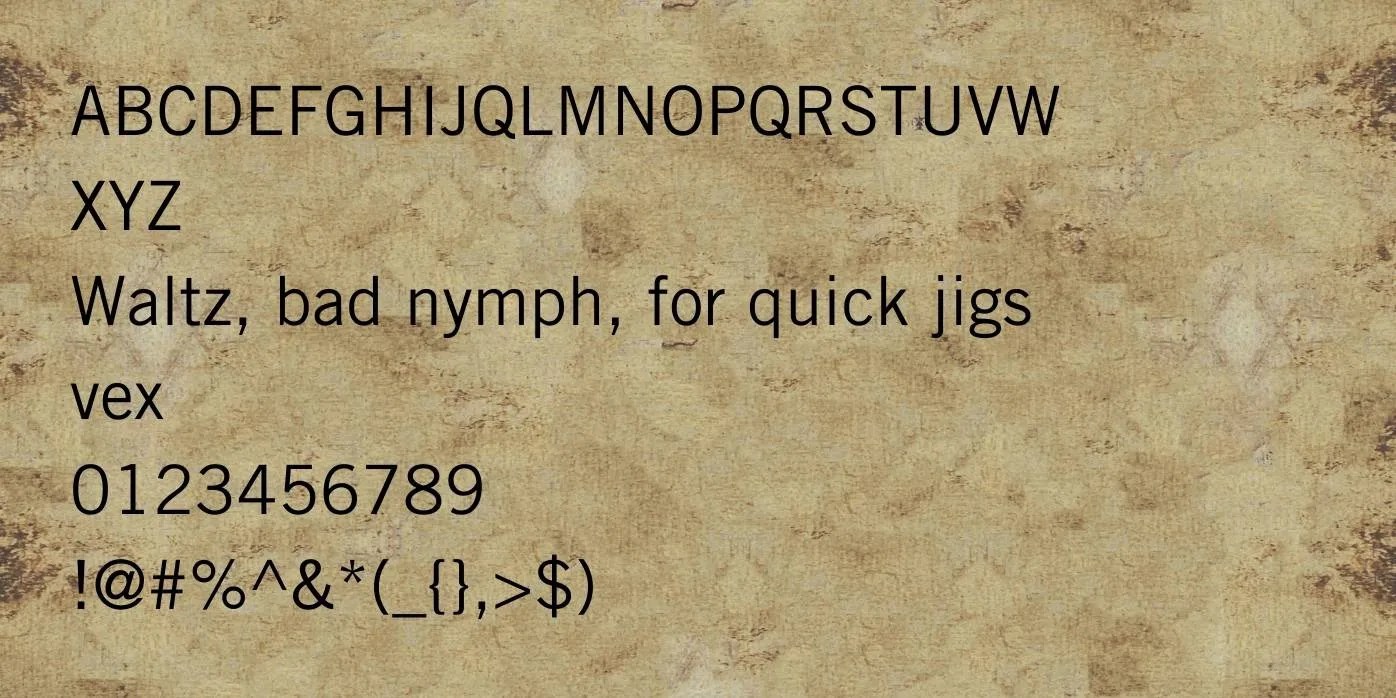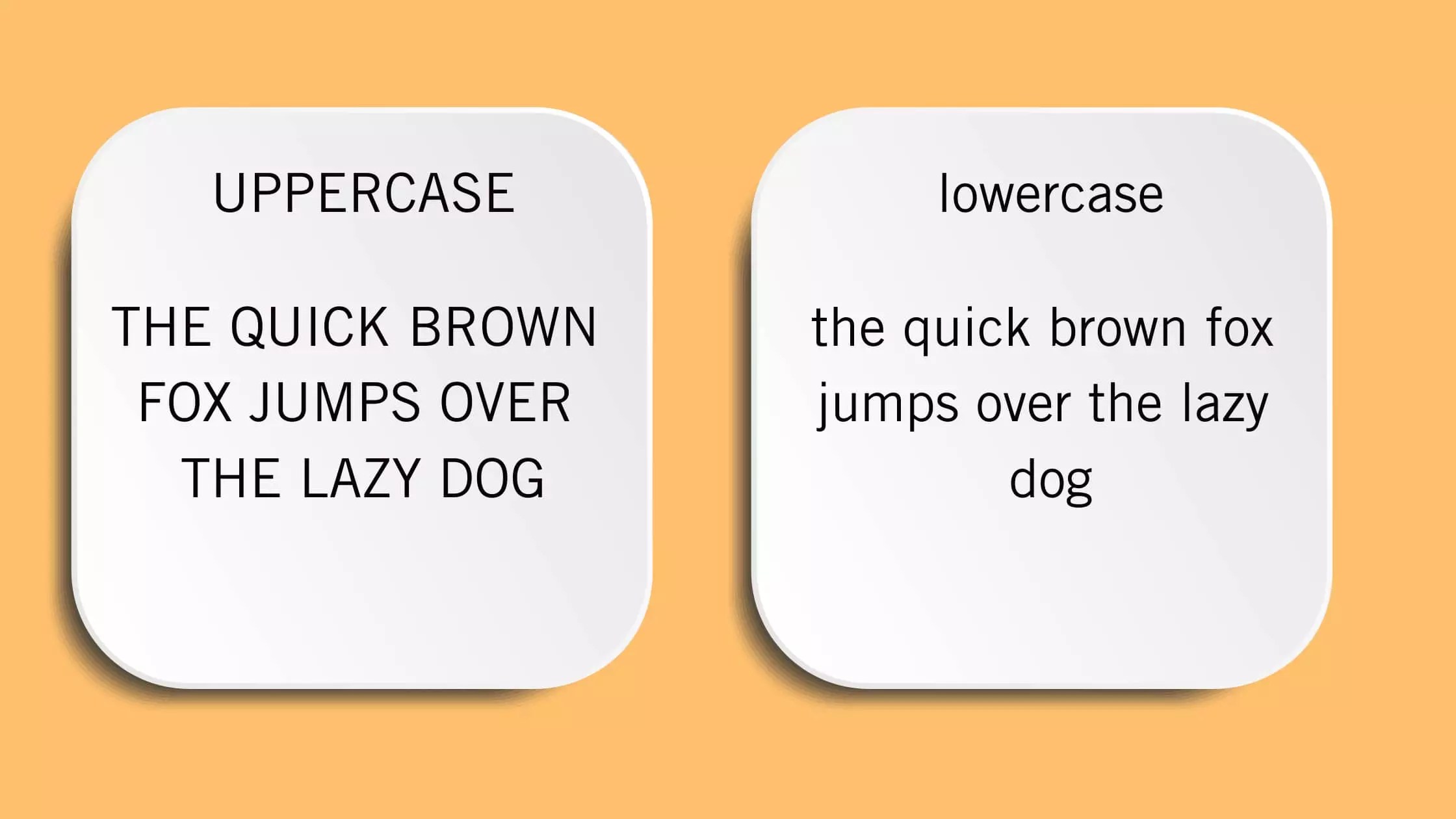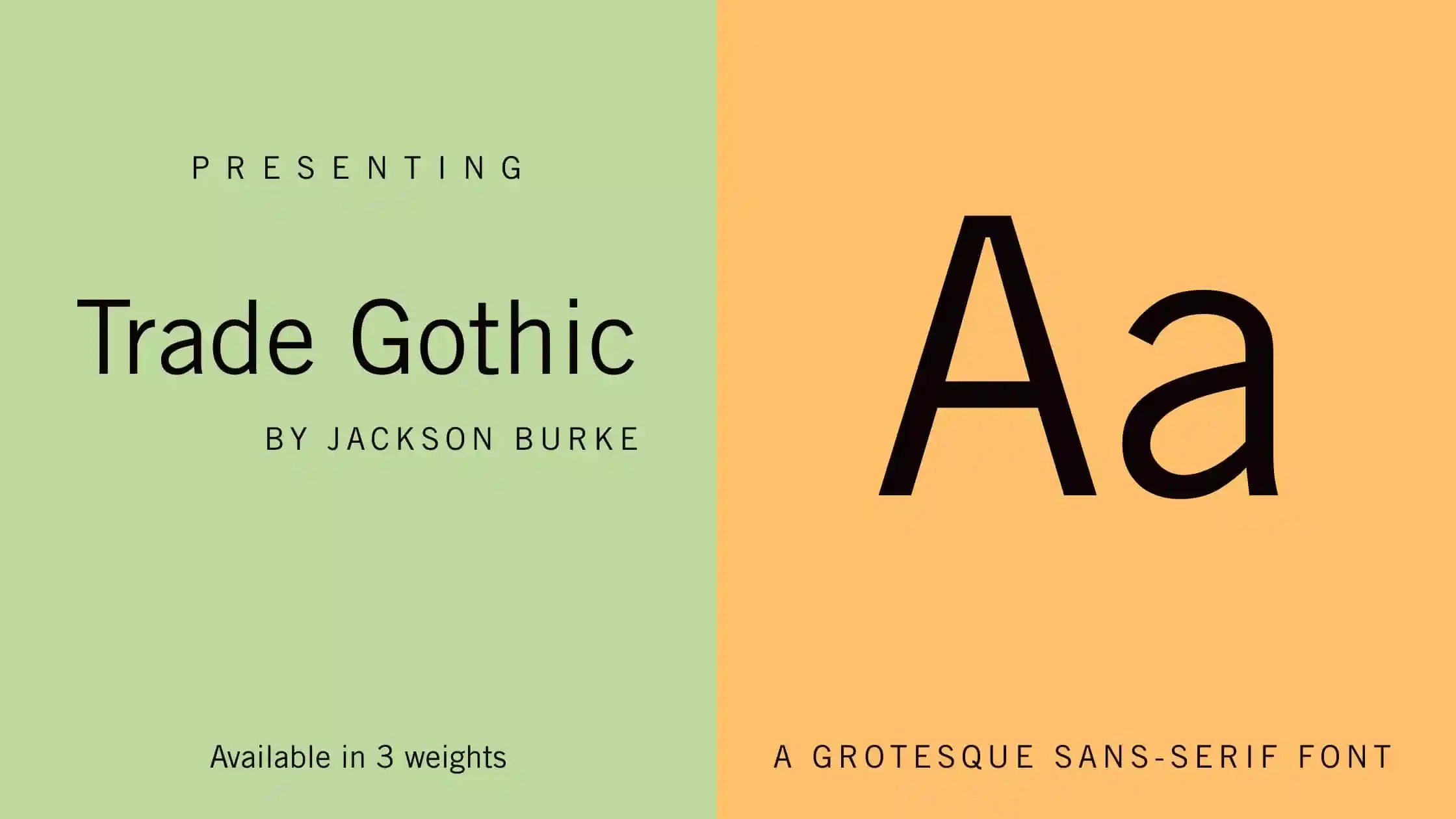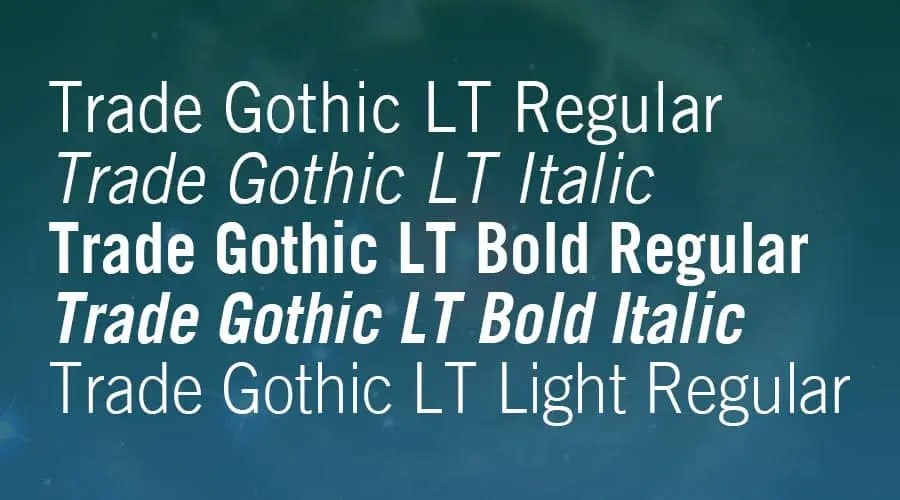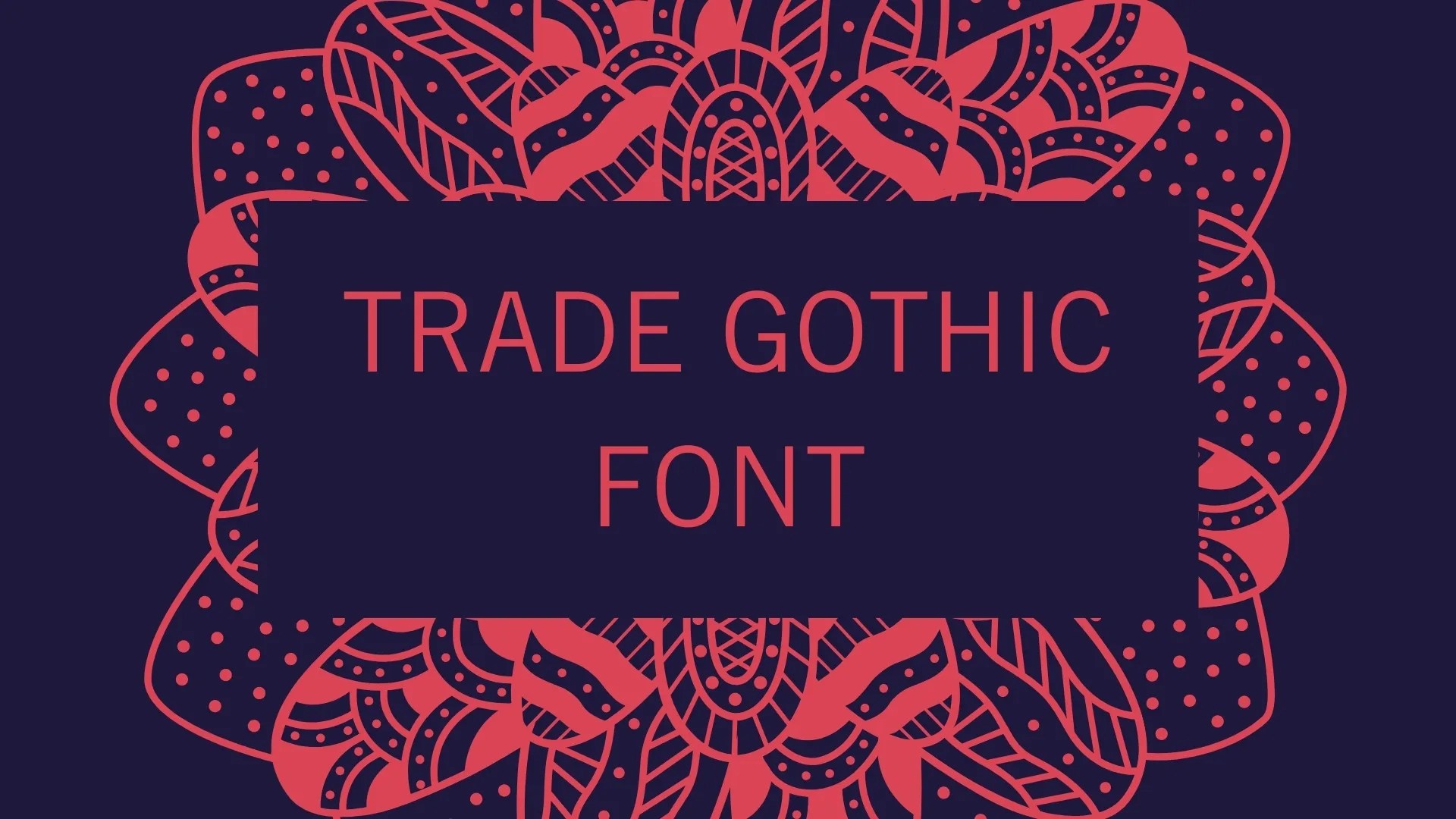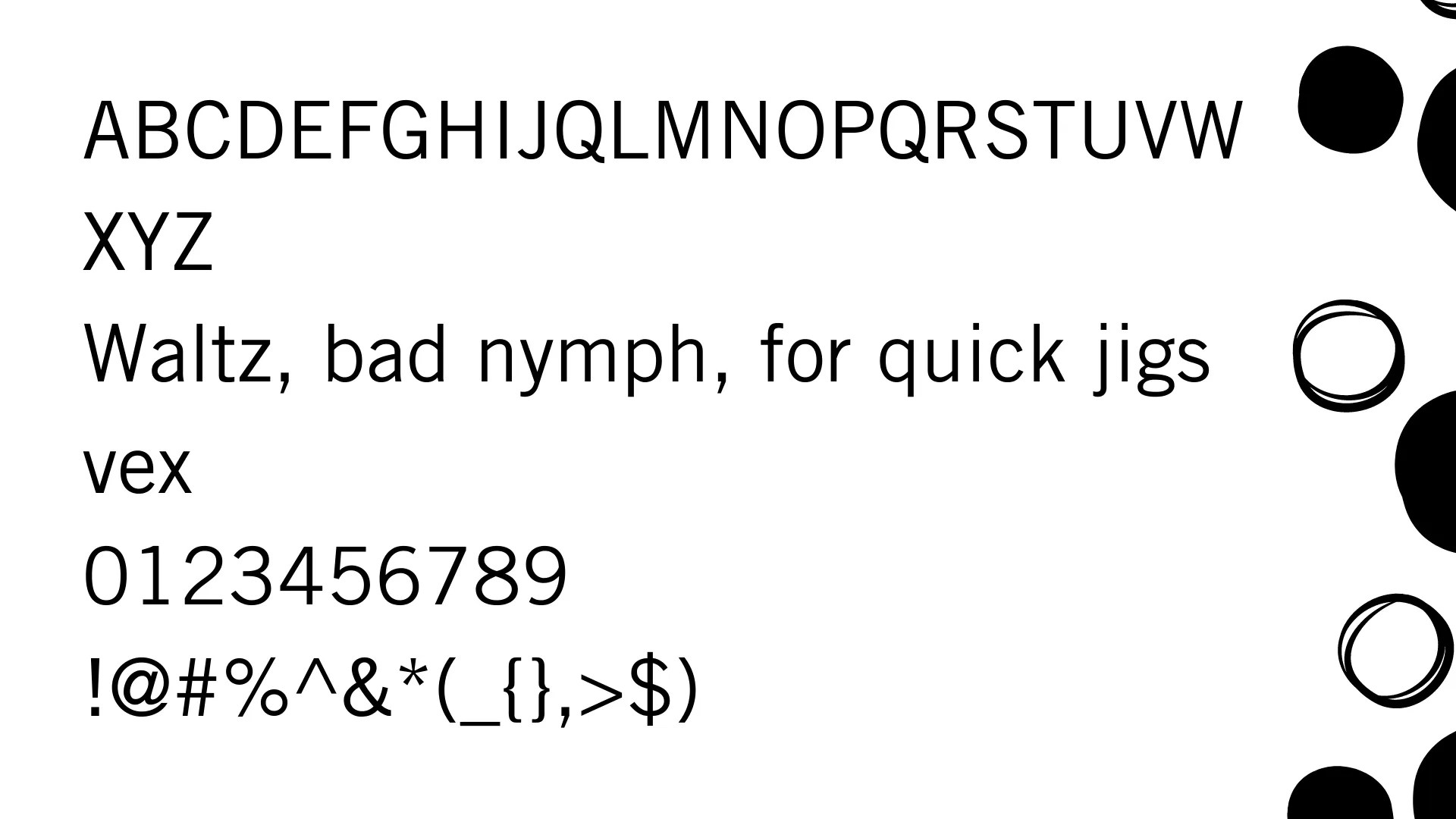
Trade Gothic Font Online . Trade gothic is available in three weights—light, regular and bold—each with matching italics as well as various condensed versions. Trade gothic is a sans serif font family that was designed by jackson burke in 1948 for linotype. Trade gothic does not display as much unifying family structure as other popular sans serif font families, but this dissonance adds a bit of. Komplette familie mit 14 fonts : Trade gothic has a distinctive and versatile appearance, with a range of weights, widths, and styles. Trade gothic inline is a quirky display companion for trade gothic next, offering five different voices, and a whole lot of personality. It is one of the most popular fonts in the world, especially in advertising, journalism, and branding. View sample text, character map, user rating and review for tradegothic bold. Download free trade gothic font family including all fonts. Download tradegothic bold for free. Trade gothic font familie wurde entworfen von jackson burke und herausgegeben von.
It is one of the most popular fonts in the world, especially in advertising, journalism, and branding. Komplette familie mit 14 fonts : Trade gothic inline is a quirky display companion for trade gothic next, offering five different voices, and a whole lot of personality. Trade gothic font familie wurde entworfen von jackson burke und herausgegeben von. Trade gothic is a sans serif font family that was designed by jackson burke in 1948 for linotype. Trade gothic does not display as much unifying family structure as other popular sans serif font families, but this dissonance adds a bit of. Download tradegothic bold for free. Trade gothic is available in three weights—light, regular and bold—each with matching italics as well as various condensed versions. Trade gothic has a distinctive and versatile appearance, with a range of weights, widths, and styles. Download free trade gothic font family including all fonts.
Trade Gothic Font Online Trade gothic font familie wurde entworfen von jackson burke und herausgegeben von. Trade gothic does not display as much unifying family structure as other popular sans serif font families, but this dissonance adds a bit of. Download tradegothic bold for free. Trade gothic inline is a quirky display companion for trade gothic next, offering five different voices, and a whole lot of personality. Trade gothic is available in three weights—light, regular and bold—each with matching italics as well as various condensed versions. View sample text, character map, user rating and review for tradegothic bold. Download free trade gothic font family including all fonts. Trade gothic is a sans serif font family that was designed by jackson burke in 1948 for linotype. Trade gothic font familie wurde entworfen von jackson burke und herausgegeben von. It is one of the most popular fonts in the world, especially in advertising, journalism, and branding. Komplette familie mit 14 fonts : Trade gothic has a distinctive and versatile appearance, with a range of weights, widths, and styles.
Trade Gothic Font Free Download Trade Gothic Font Online It is one of the most popular fonts in the world, especially in advertising, journalism, and branding. Trade gothic is a sans serif font family that was designed by jackson burke in 1948 for linotype. Trade gothic does not display as much unifying family structure as other popular sans serif font families, but this dissonance adds a bit of. Download. Trade Gothic Font Online.
Trade Gothic Next Pro Condensed Heavy Fonts Trade Gothic Font Online Trade gothic font familie wurde entworfen von jackson burke und herausgegeben von. Trade gothic is a sans serif font family that was designed by jackson burke in 1948 for linotype. It is one of the most popular fonts in the world, especially in advertising, journalism, and branding. Komplette familie mit 14 fonts : Trade gothic does not display as much. Trade Gothic Font Online.
Trade Gothic Next Pro Light Fonts Trade Gothic Font Online It is one of the most popular fonts in the world, especially in advertising, journalism, and branding. Komplette familie mit 14 fonts : Trade gothic font familie wurde entworfen von jackson burke und herausgegeben von. Trade gothic has a distinctive and versatile appearance, with a range of weights, widths, and styles. Trade gothic does not display as much unifying family. Trade Gothic Font Online.
Trade Gothic Font Free Download Trade Gothic Font Online Trade gothic inline is a quirky display companion for trade gothic next, offering five different voices, and a whole lot of personality. Komplette familie mit 14 fonts : Trade gothic has a distinctive and versatile appearance, with a range of weights, widths, and styles. Download tradegothic bold for free. Download free trade gothic font family including all fonts. View sample. Trade Gothic Font Online.
Trade Gothic Font Free Download Trade Gothic Font Online Trade gothic inline is a quirky display companion for trade gothic next, offering five different voices, and a whole lot of personality. Trade gothic font familie wurde entworfen von jackson burke und herausgegeben von. View sample text, character map, user rating and review for tradegothic bold. Komplette familie mit 14 fonts : Trade gothic is available in three weights—light, regular. Trade Gothic Font Online.
Trade Gothic Bold Font Free Download Trade Gothic Font Online Download tradegothic bold for free. Trade gothic inline is a quirky display companion for trade gothic next, offering five different voices, and a whole lot of personality. Download free trade gothic font family including all fonts. Trade gothic is a sans serif font family that was designed by jackson burke in 1948 for linotype. Trade gothic is available in three. Trade Gothic Font Online.
Trade Gothic DAYLIGHT FONTS Trade Gothic Font Online Trade gothic is available in three weights—light, regular and bold—each with matching italics as well as various condensed versions. Trade gothic is a sans serif font family that was designed by jackson burke in 1948 for linotype. Trade gothic font familie wurde entworfen von jackson burke und herausgegeben von. View sample text, character map, user rating and review for tradegothic. Trade Gothic Font Online.
Identifont Trade Gothic Inline Trade Gothic Font Online Trade gothic is available in three weights—light, regular and bold—each with matching italics as well as various condensed versions. Trade gothic does not display as much unifying family structure as other popular sans serif font families, but this dissonance adds a bit of. Trade gothic has a distinctive and versatile appearance, with a range of weights, widths, and styles. It. Trade Gothic Font Online.